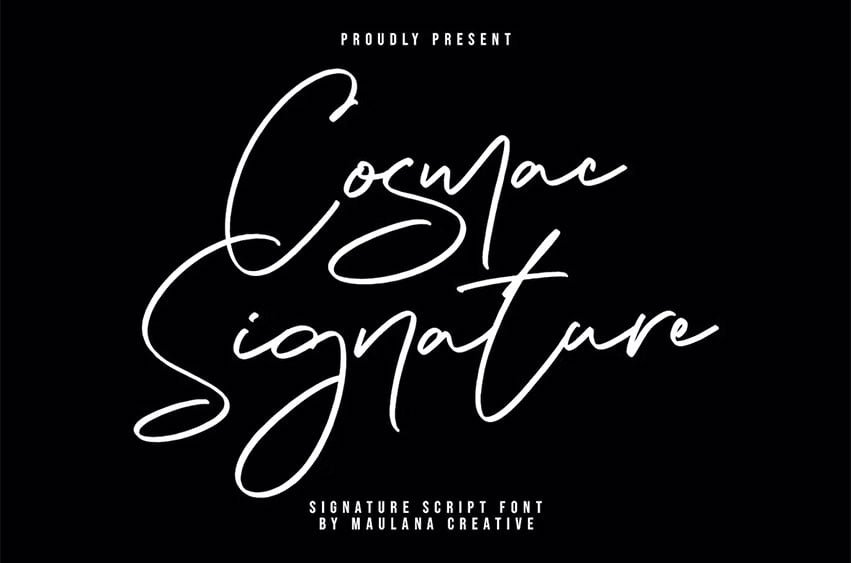
Cosmac Signature Font Handwritten Script Font. With bold sharp edges stroke, fun character with a bit of ligatures and alternates. To give you an extra creative work. Cosmac font support multilingual more than 100+ language. This font is good for logo design, Social media, Movie Titles, Books Titles, a short text even a long text letter and good for your secondary text font with sans or serif. Make a stunning work with Cosmac display font.